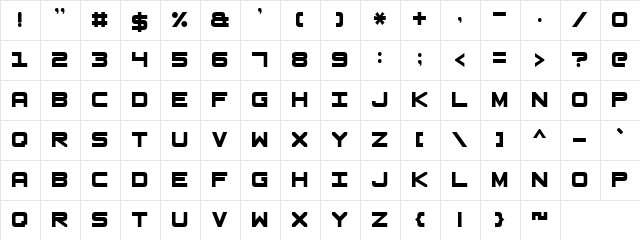
Basic Square 7 Solid Regular
| Foundry | Style-7 |
| Designer | Sizenko Alexander |
Design Context for Basic Square 7 Solid Typeface
Basic Square 7 Solid is a composed and adaptable typeface that performs quietly and consistently across a wide range of design contexts.